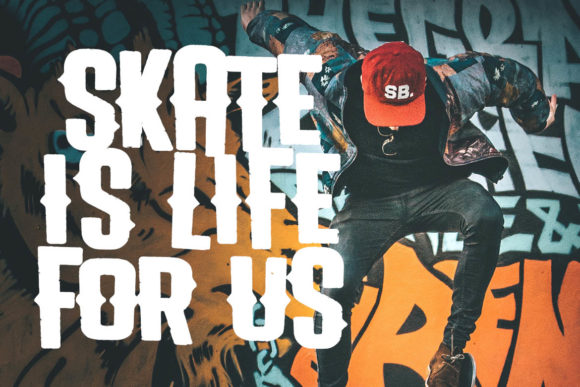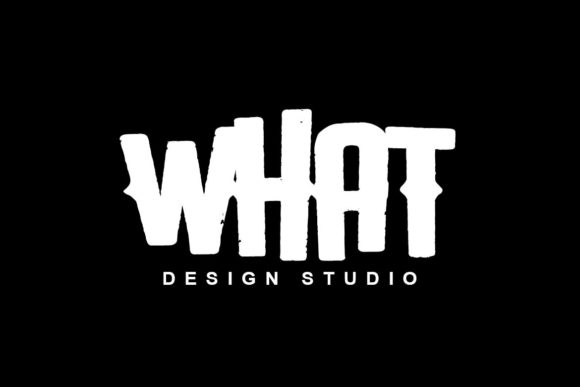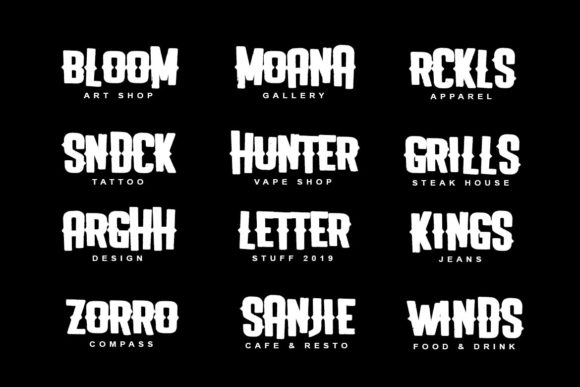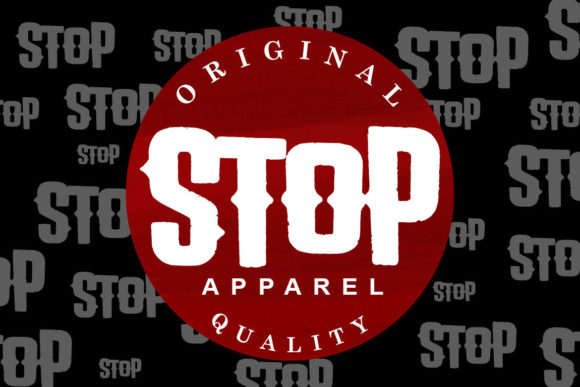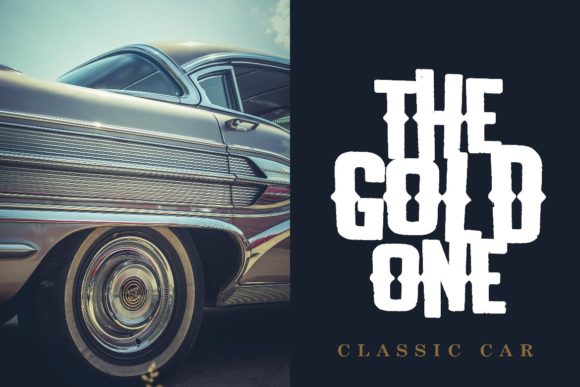
The Blink Kiss Font: A Unique Logotype for Creative Projects
Have you ever been in the middle of a design project, and suddenly, you’re stuck on finding the perfect font? I recall a recent experience where a client asked for a playful, yet elegant logotype for their new brand. After hours of searching, I stumbled upon the Blink Kiss font, and it instantly became the perfect fit. In this article, we’ll dive into the world of Blink Kiss, exploring its features, uses, and what makes it an excellent addition to your design toolkit.
A Personal Encounter with Blink Kiss
I was working on a logo design project for a trendy clothing brand, and I needed a font that would capture their playful and youthful vibe. After trying out several fonts, I came across Blink Kiss, and it immediately caught my attention. The unique blend of modern and whimsical elements made it an instant winner. I was able to create a stunning logo that exceeded my client’s expectations, and I knew right then that Blink Kiss was something special.
An Honest Review of Blink Kiss
- ✨ Unique and playful design that’s perfect for logos, quotes, and posters
- ✅ Highly versatile and can be used for various design projects, from clothing to signage
- 💡 Excellent for creating eye-catching titles and headings
- 🎨 Offers a wide range of creative possibilities with its upper and lowercase characters
While Blink Kiss is an amazing font, there are a few things to keep in mind:
- ⚠️ Limited availability of Cyrillic or non-English characters
The Backstory of Blink Kiss
Blink Kiss was designed with the intention of creating a unique logotype font that would capture the essence of playfulness and modernity. The designer aimed to craft a font that would be both elegant and whimsical, making it perfect for a wide range of creative projects. Although the designer’s true identity remains a mystery, their creation has left a lasting impact on the design community.
Q: What type of projects is Blink Kiss best suited for?
A: Blink Kiss is perfect for logos, quotes, posters, playful lettering, clothing, and much more!
Q: Does Blink Kiss support OpenType features?
A: Yes, Blink Kiss supports OpenType features, including glyphs and stylistic alternates.